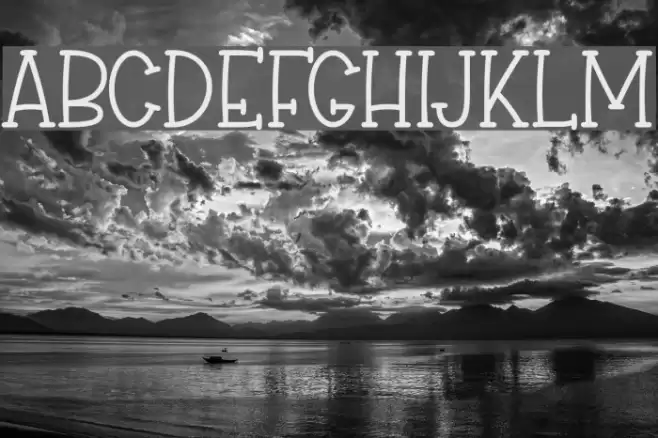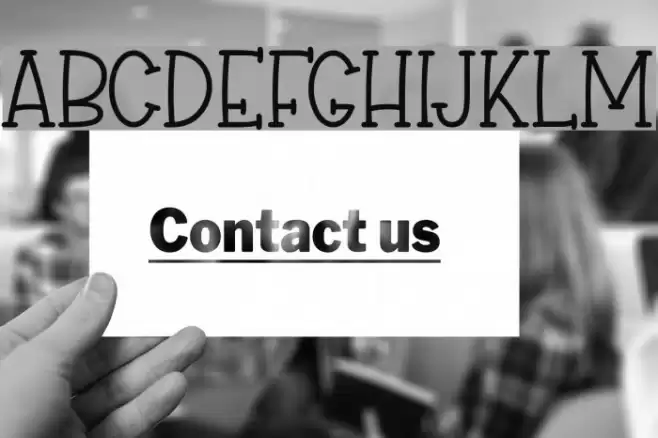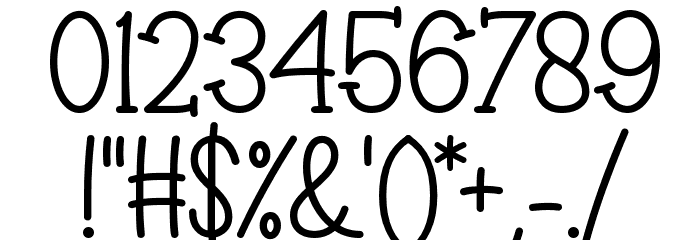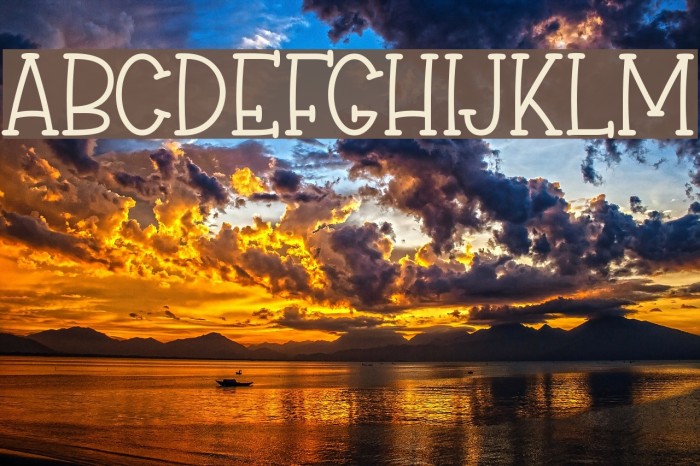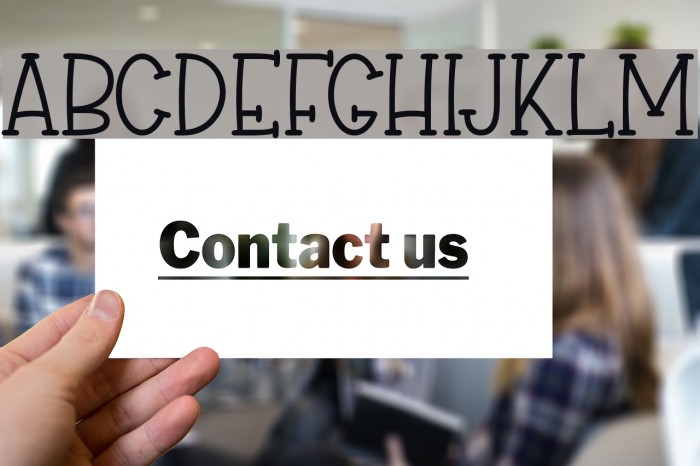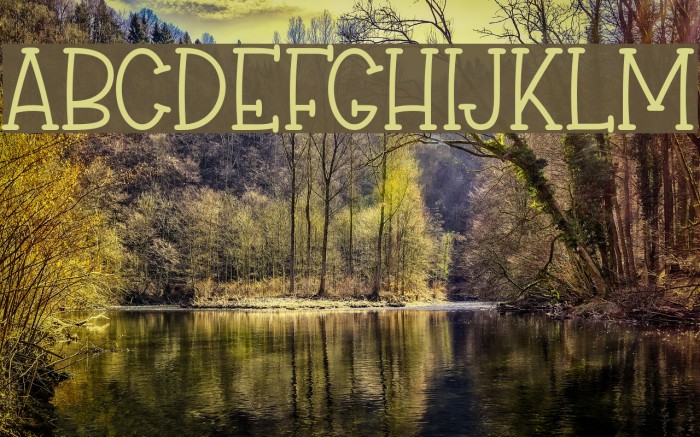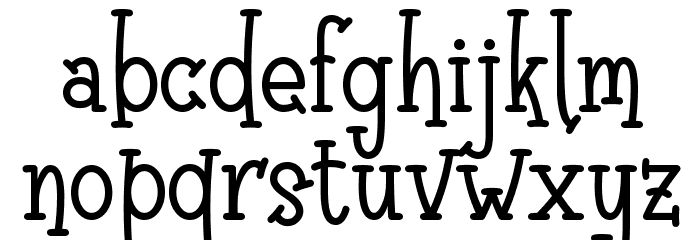
Sri Muliyo Font
Sri Muliyo Description
This font features a playful and whimsical style, characterized by its hand-drawn appearance. The letters are slightly irregular, with a casual and friendly vibe. The uppercase letters are tall and narrow, while the lowercase letters have a more rounded and approachable look. The numbers and special characters maintain the same playful aesthetic, making them suitable for informal and creative projects. The strokes are consistent in width, providing a uniform look across all characters. This font is perfect for projects that require a touch of fun and creativity.
A playful, hand-drawn font with a whimsical and casual style from Uncategorized fonts.
- Proposed Projects: Ideal for children's books, greeting cards, playful branding, and creative posters.
- Overall Style: Playful
- Use Case: Headlines, Logos, Creative projects